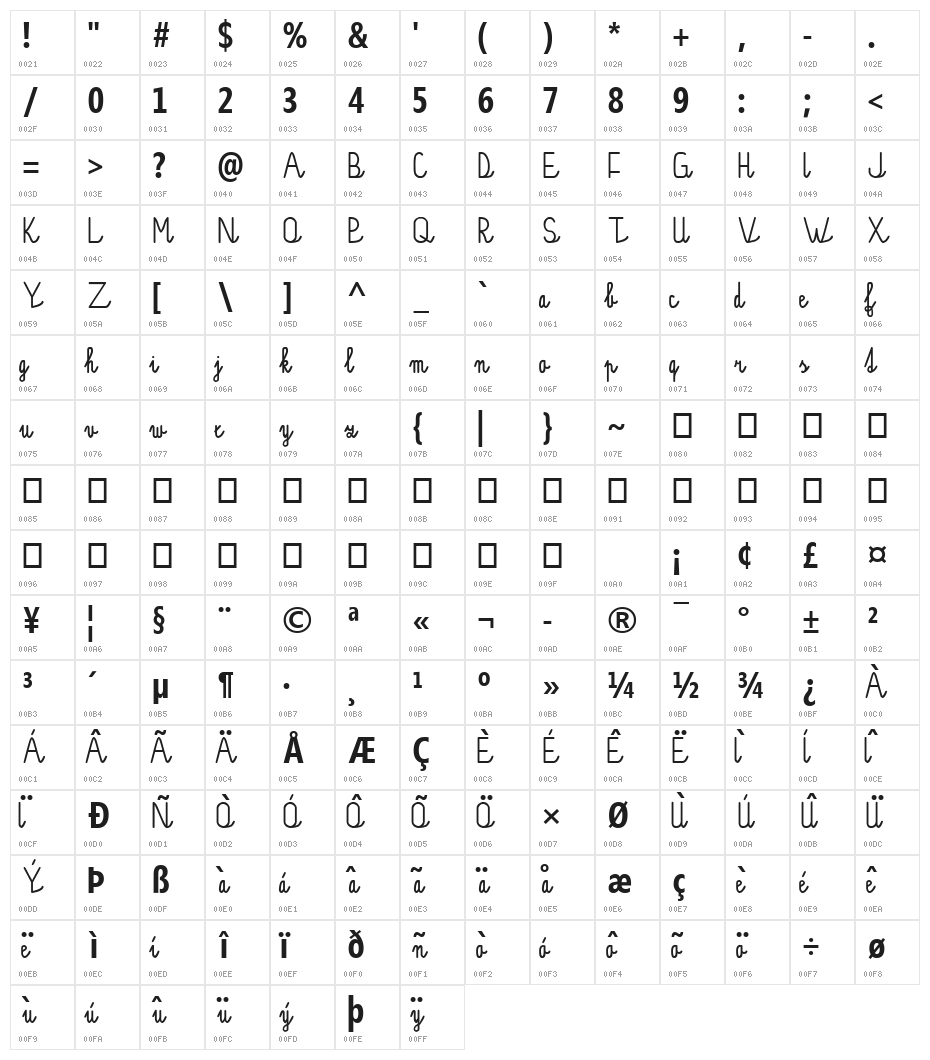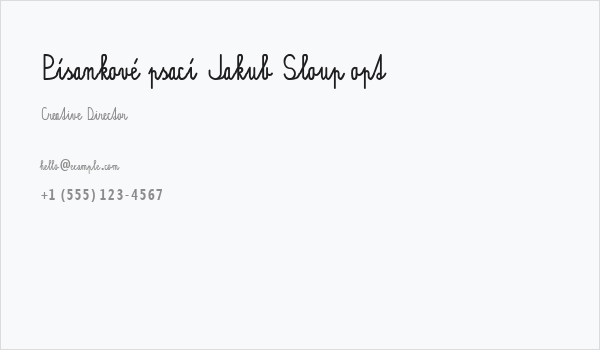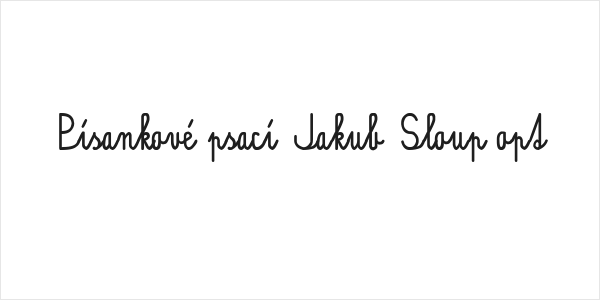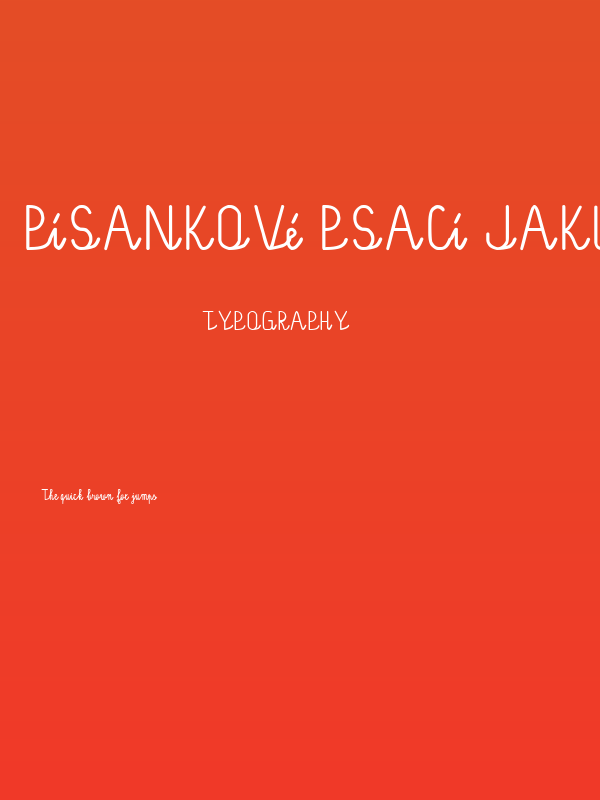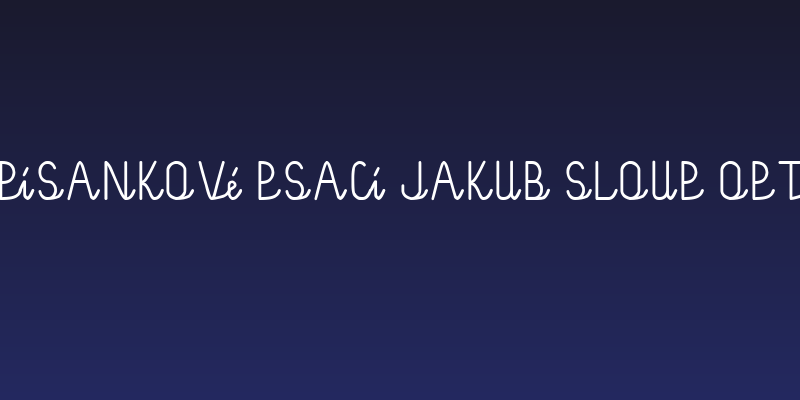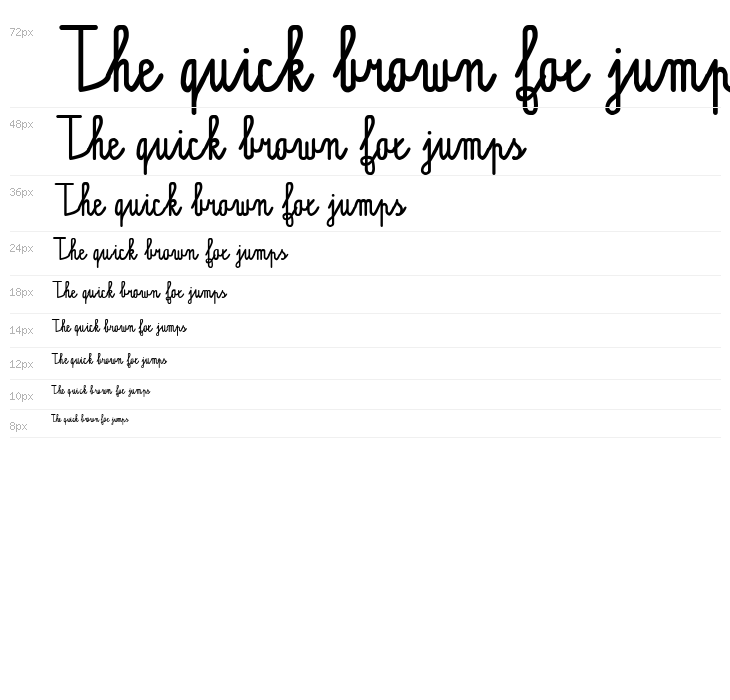
Písankové psací Jakub Sloup opt Font
Písankové psací Jakub Sloup opt Description
This font presents a unique blend of styles, combining elements of both script and sans-serif. The uppercase letters are characterized by a clean, geometric design with subtle curves, giving them a modern and approachable appearance. The lowercase letters, on the other hand, exhibit a more fluid and cursive style, adding a touch of elegance and personality. The numerals are bold and straightforward, ensuring clarity and readability. Special characters maintain the overall aesthetic, seamlessly integrating with both the uppercase and lowercase sets. This versatile font is well-suited for a variety of design applications, offering a balance between modernity and classic script influences.
| Proposed Projects | Ideal for branding, invitations, and editorial design where a mix of modern and classic styles is desired. |